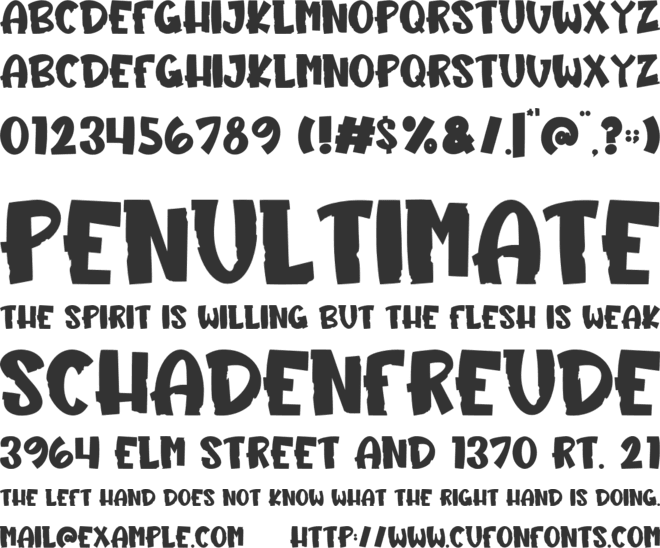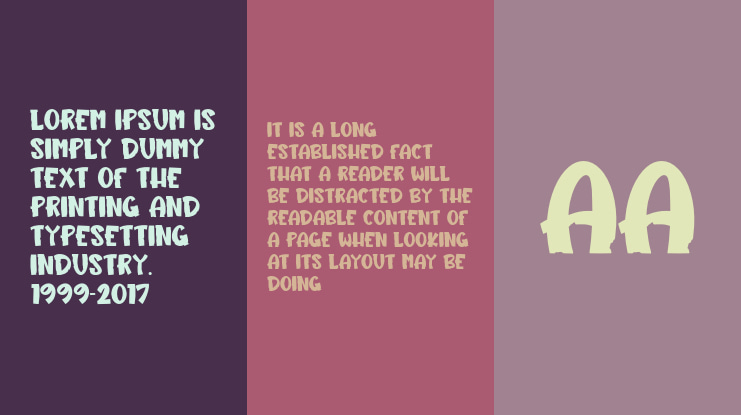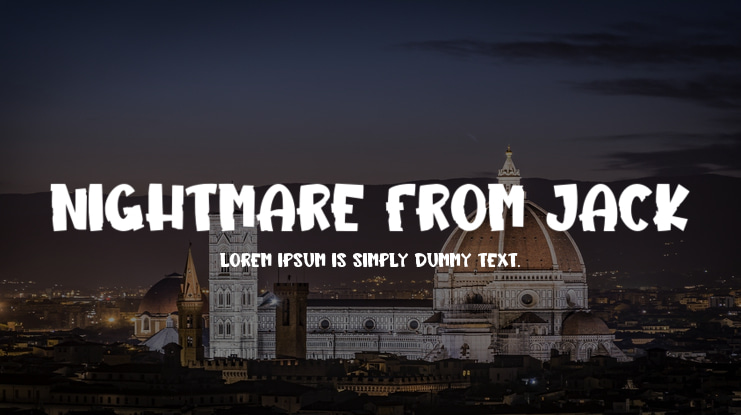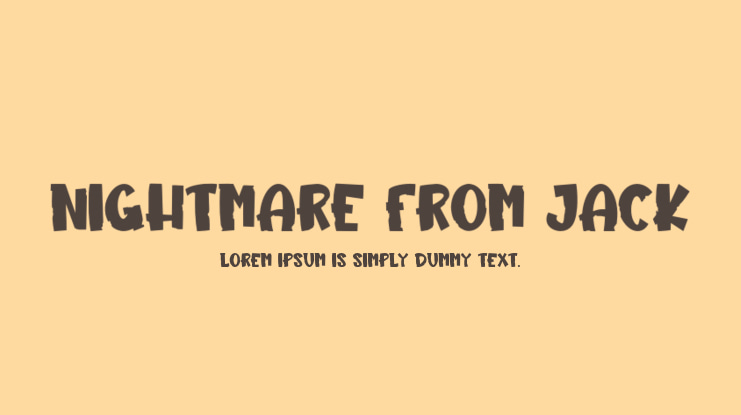
Nightmare From Jack Font Family
Nightmare From Jack - Halloween Display Font that contains lowercase, uppercase, and symbols, and also supports multi-language. There are a lot of ligatures in this font. This Font also comes with ligatures, alternates, and many more. This font is suitable for fashion, branding, catalog, and other design that you want.